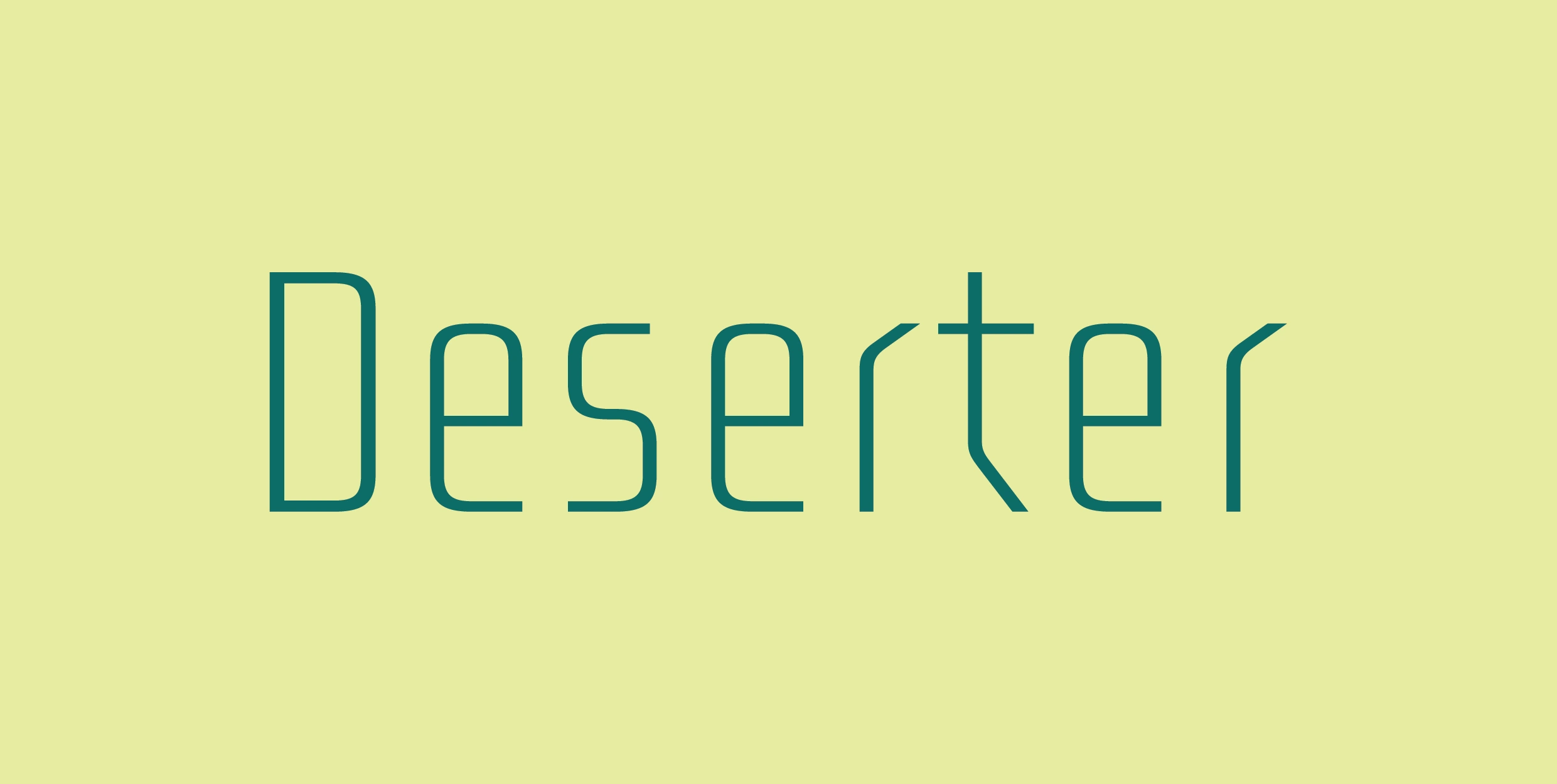
Inspired by the design, purpose, and especially the abundance of monospaced typefaces—which seem to be far more numerous than the actual demand for them—I started wondering whether it would be possible to create a modern, minimalist sans serif with subtle display characteristics that is neither monospaced nor primarily intended for coding or other IT-related workflows.
Instead of being designed for displaying source code or merely imitating the visual effect of monospaced fonts, the goal is to create a typeface that conveys a distinctly digital, technology-oriented aesthetic while remaining highly versatile. It is intended primarily for branding, visual identities, and other design applications within the IT industry.
So far, I have designed several uppercase and lowercase letters in the Light weight, which will be the thinnest style in the planned weight range.
The character set is now complete, including numerals as well as uppercase and lowercase basic Latin letters. The design concept is based on keeping the character widths as consistent as possible, creating a sense of uniformity, harmony, and visual balance when forming words and setting text.
The Black weight (the most thicker weight) is now complete. Rather than simply increasing stroke thickness, every glyph was carefully refined to preserve the font's distinctive character, balanced proportions, and readability. Still there might be some further adjustments and fine tuning, but in general this is the Black weight at the moment.